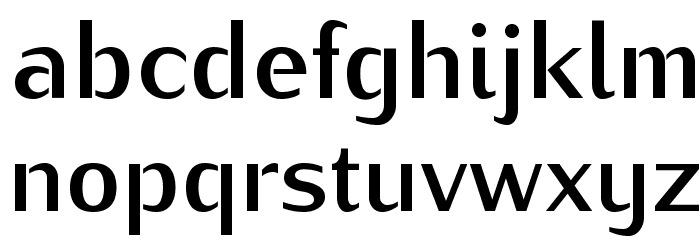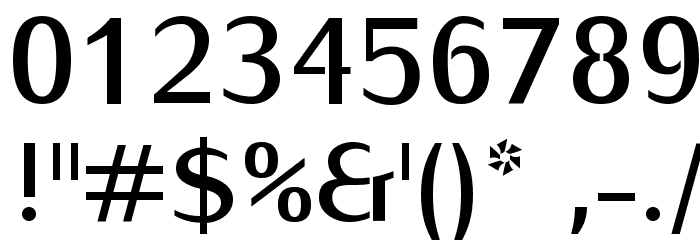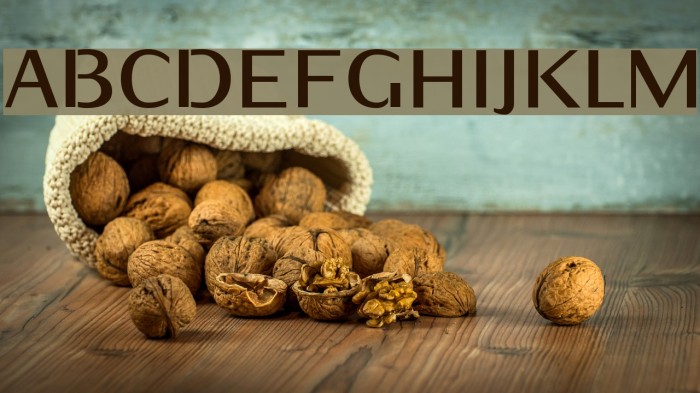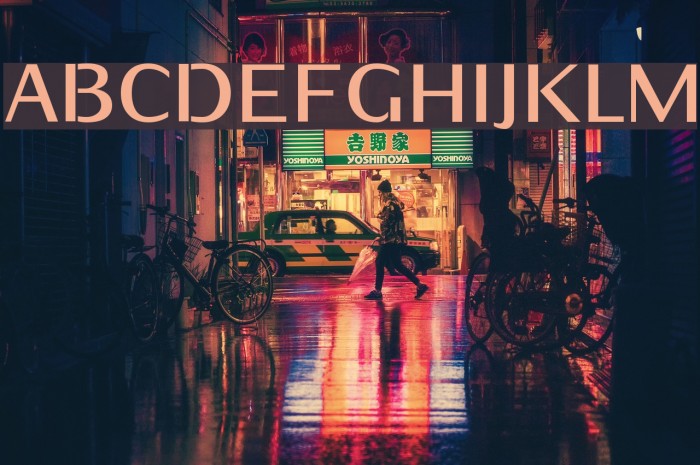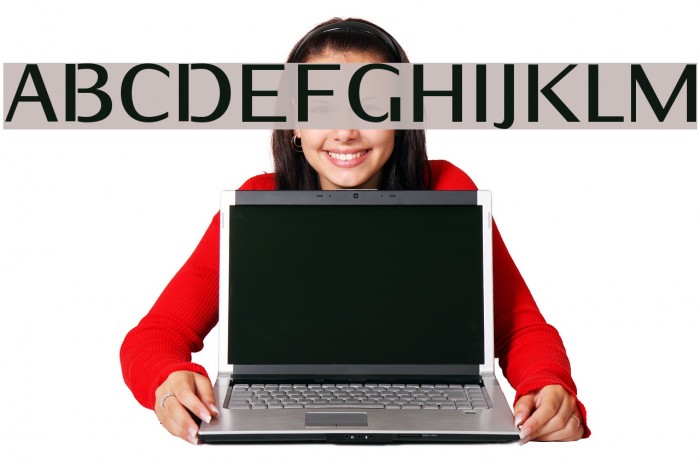
Kurier-Bold Font
This font exhibits a clean and modern sans-serif style, characterized by its bold and strong presence. The uppercase letters are uniform in height, with a slight curvature that adds a touch of softness to the otherwise robust design. The lowercase letters maintain a consistent x-height, ensuring readability and balance. Numbers are clear and distinct, with a uniform width that complements the overall design. Special characters are well-integrated, maintaining the font's cohesive appearance. The font's bold weight and modern aesthetic make it suitable for a variety of applications.
A bold, modern sans-serif font with a clean and strong appearance.
- Proposed Projects: Ideal for branding, headlines, posters, and digital media where a bold and modern look is desired.